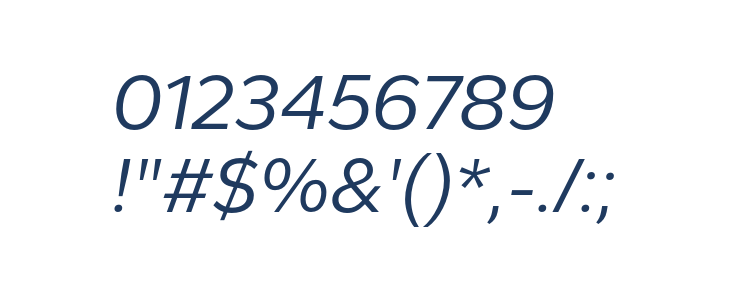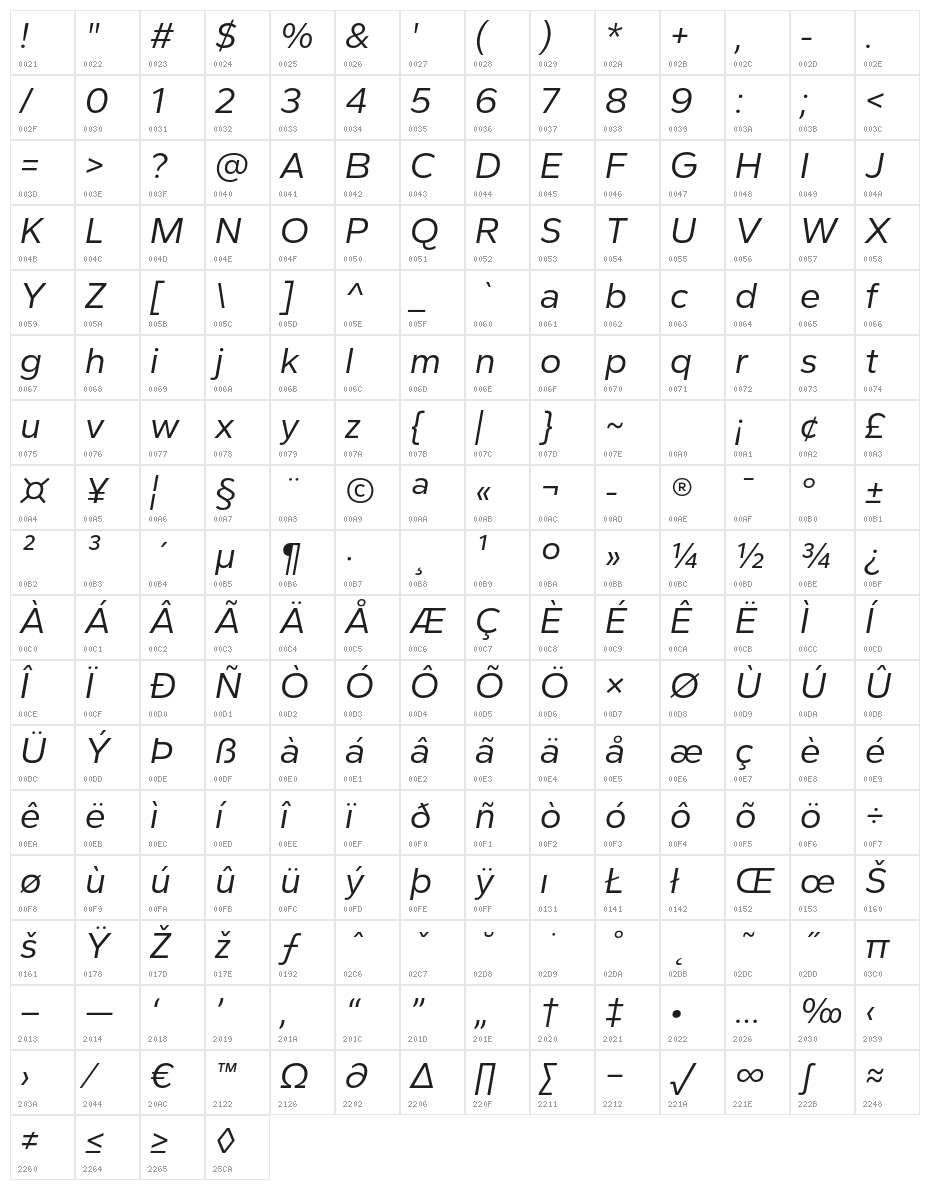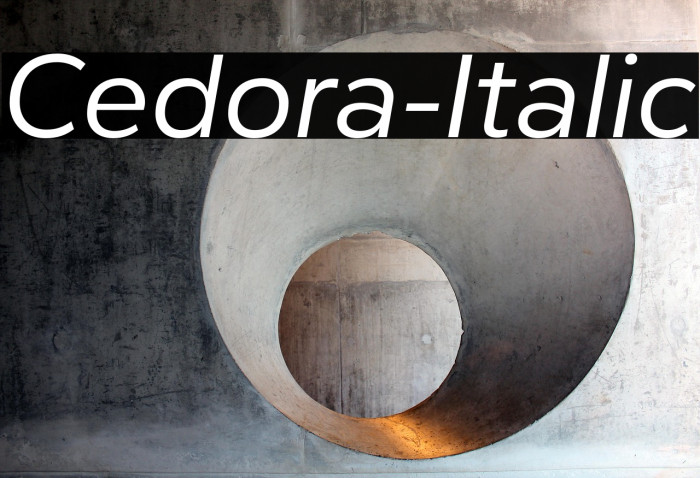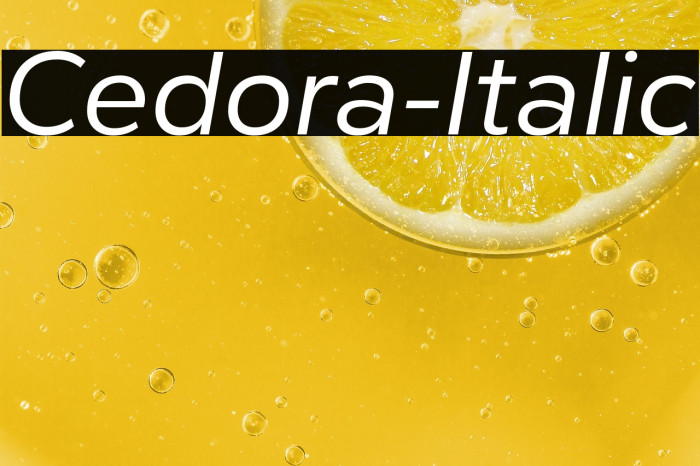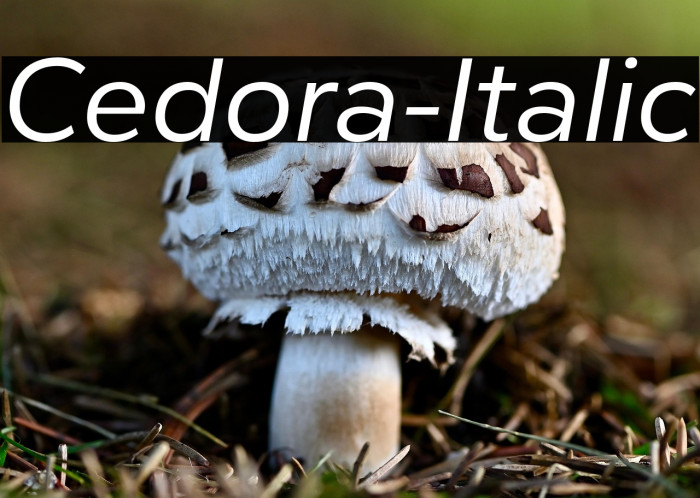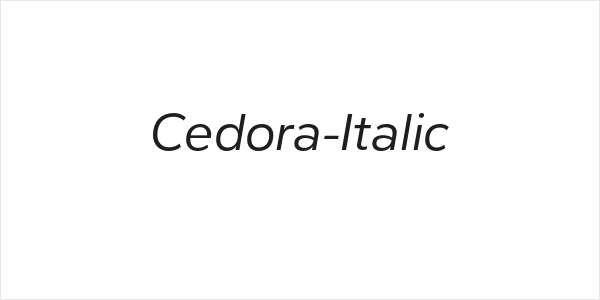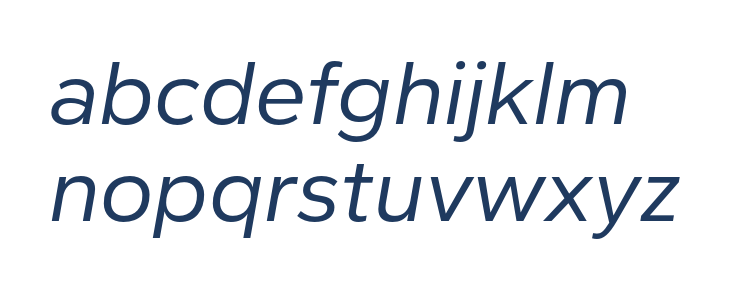
Cedora-Italic Font
Cedora-Italic Description
This font features a sleek, modern design with a slight italic slant, giving it a dynamic and forward-moving appearance. The characters are clean and sans-serif, providing a contemporary look that is both professional and approachable. The uniform stroke width contributes to a harmonious and balanced aesthetic, making it suitable for a variety of applications. The font maintains a consistent character width, ensuring readability and clarity across different sizes. Its simplicity and elegance make it versatile for both digital and print media.